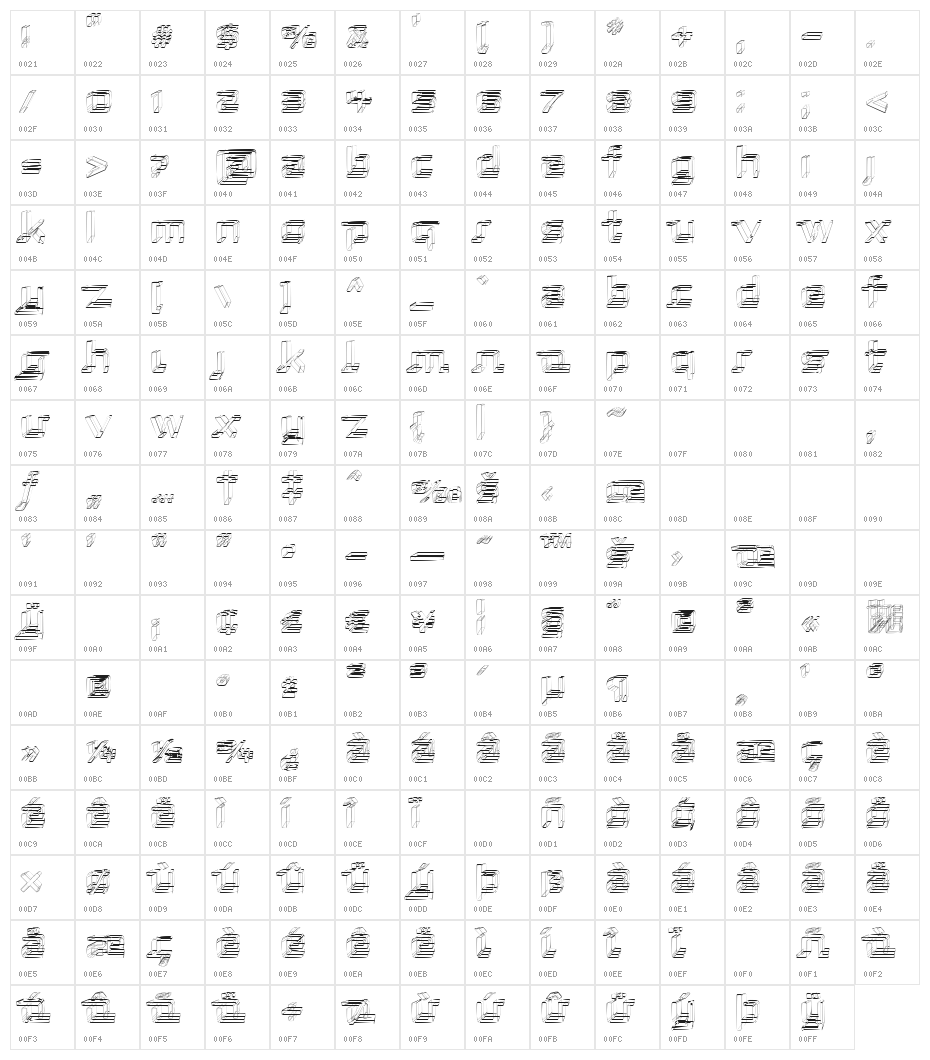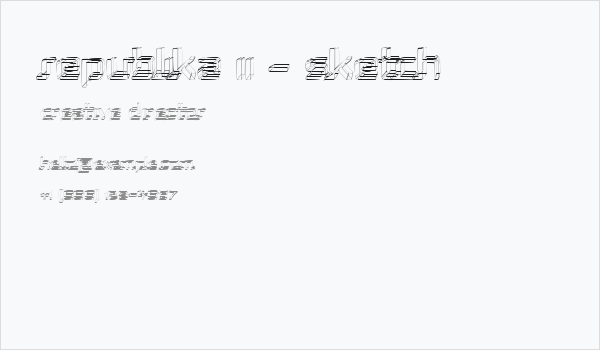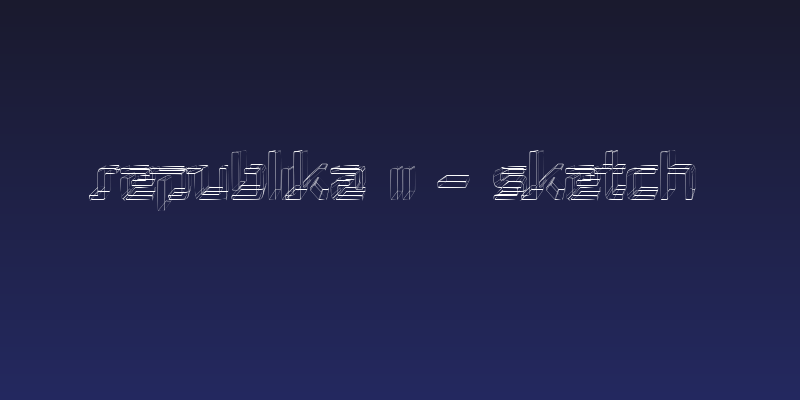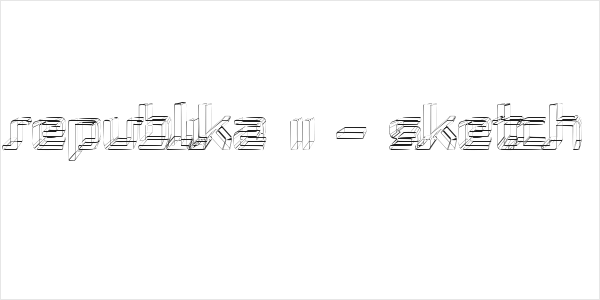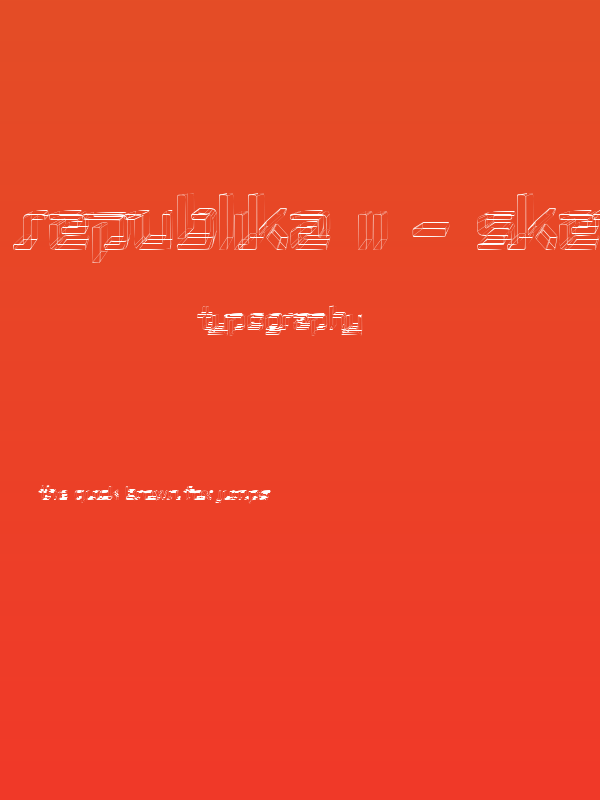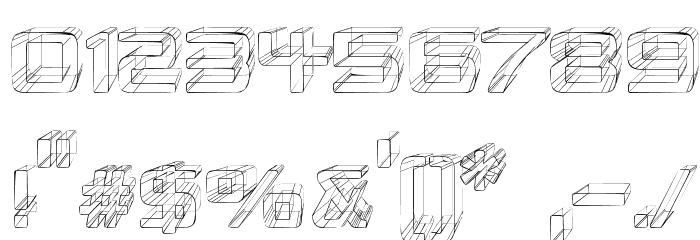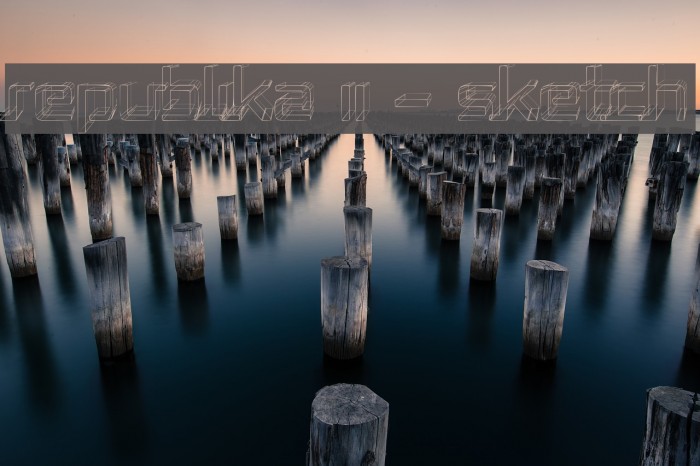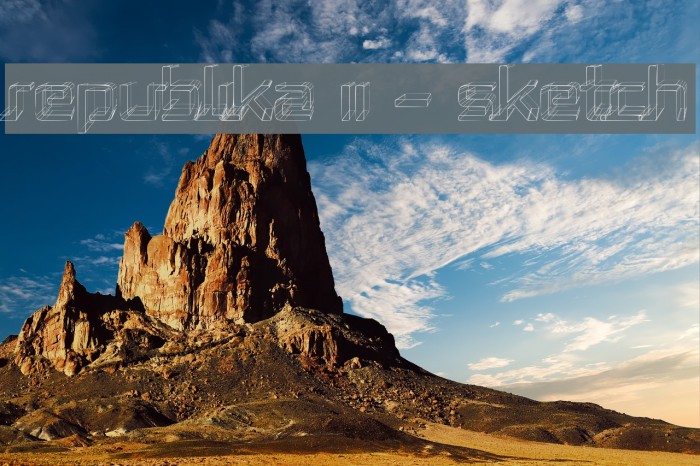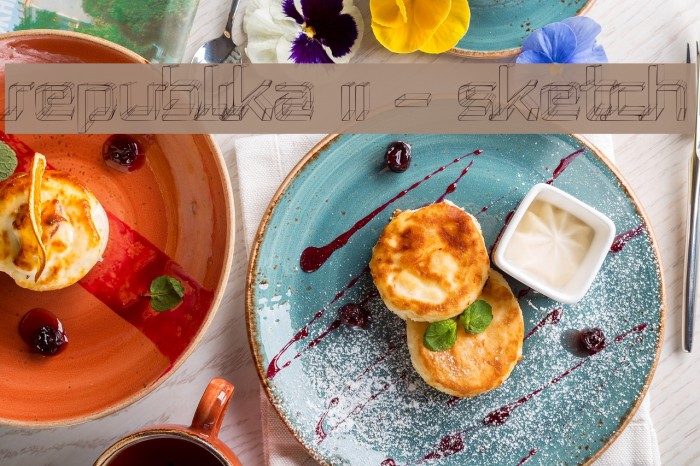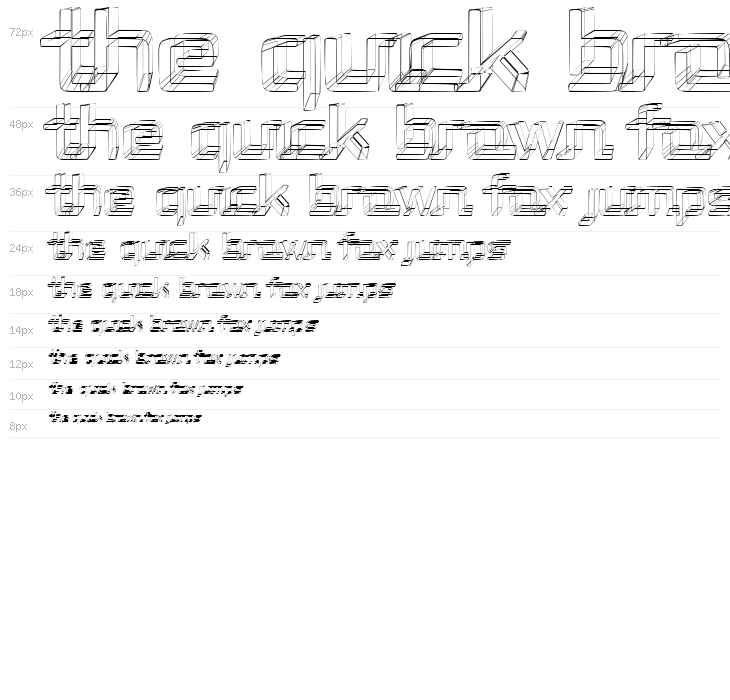
Republika II - Sketch Font
Republika II - Sketch Description
This font features a unique, sketch-like design with a three-dimensional appearance. Each character is constructed with overlapping lines that create a sense of depth and movement. The geometric shapes and angular edges give it a modern and industrial feel. The uppercase and lowercase letters maintain a consistent style, with the numbers and special characters following suit. The font's intricate design makes it stand out, ideal for projects that require a bold and artistic touch. Its distinct style is both eye-catching and versatile, suitable for a variety of creative applications.
| Proposed Projects | Ideal for posters, album covers, branding, and digital artwork where a bold, artistic statement is needed. |